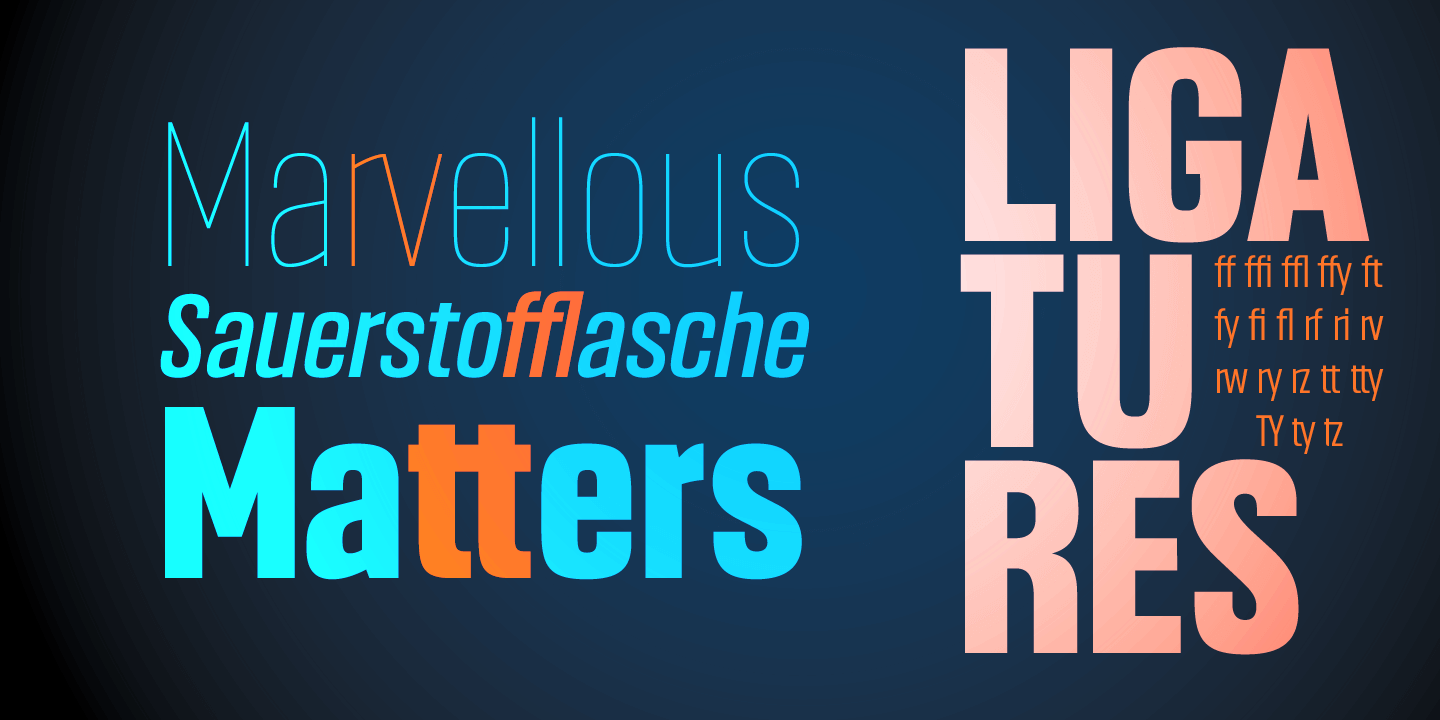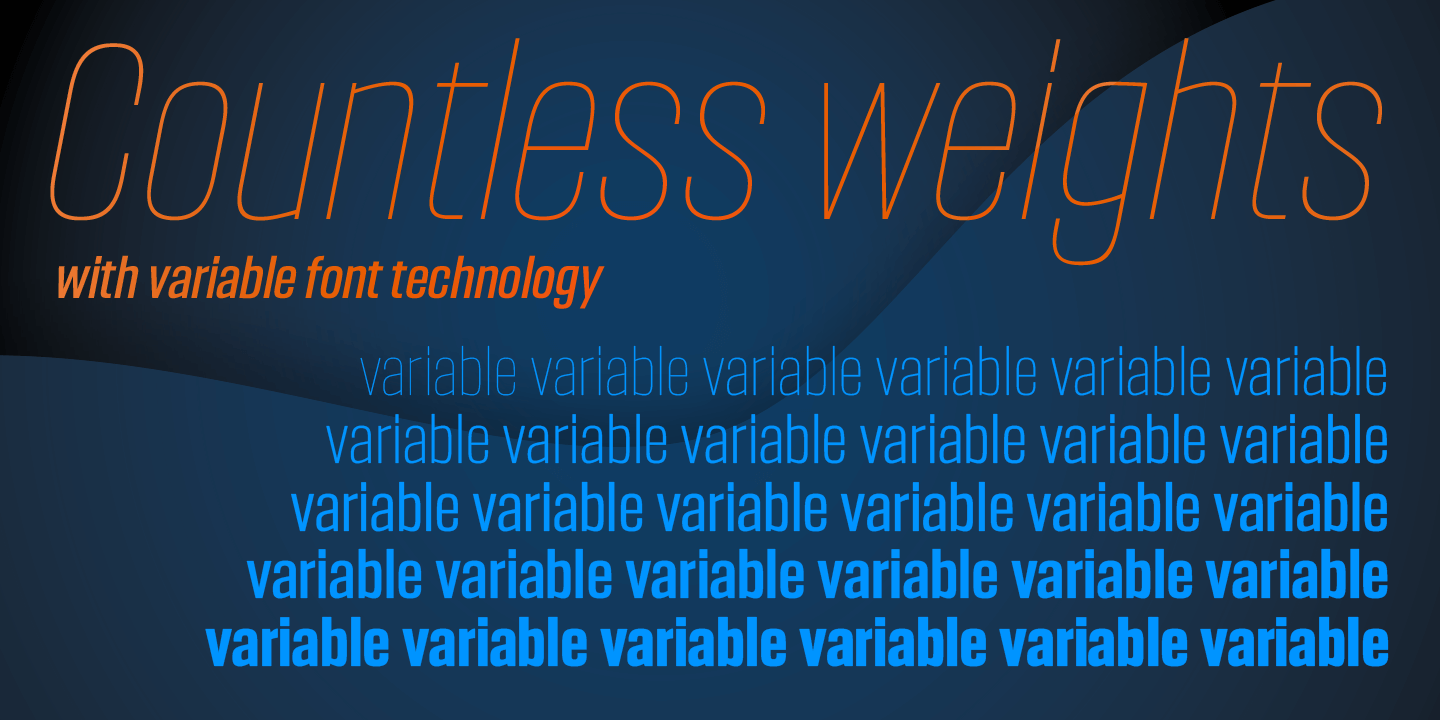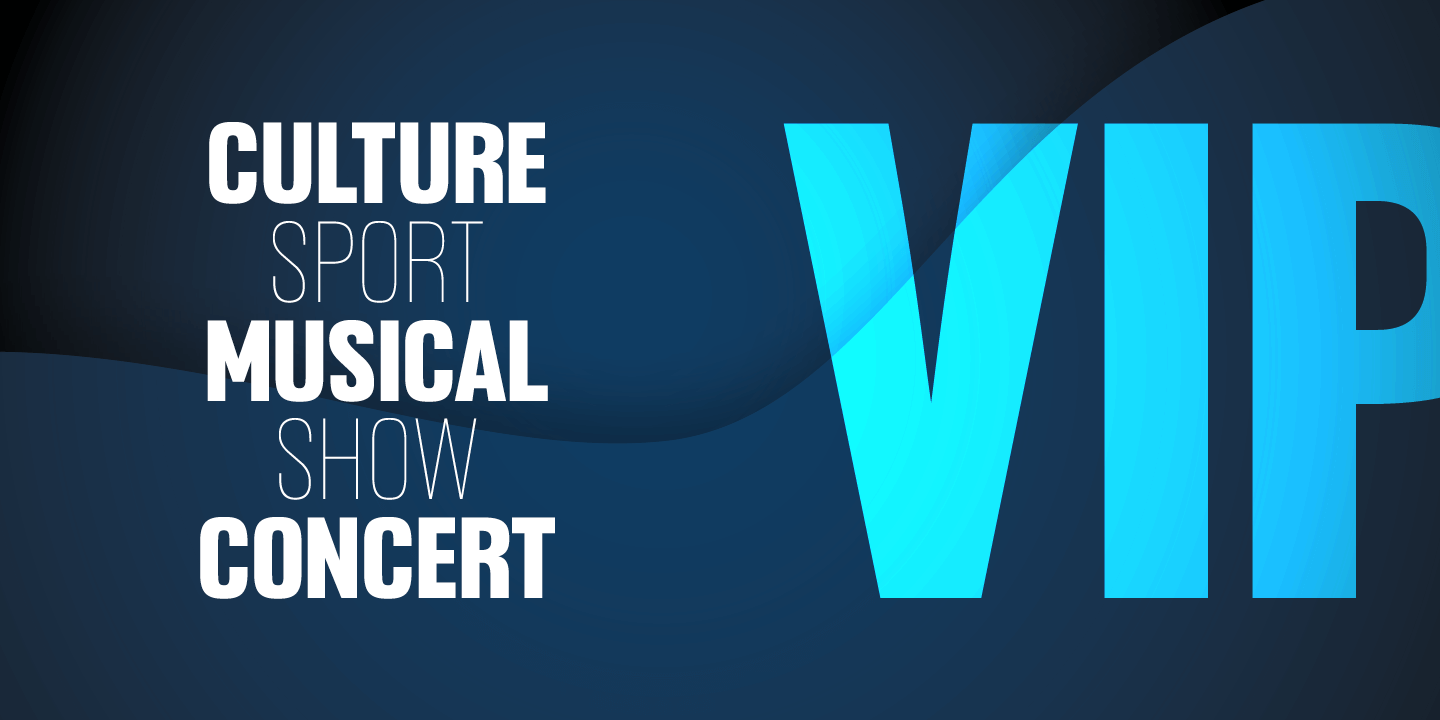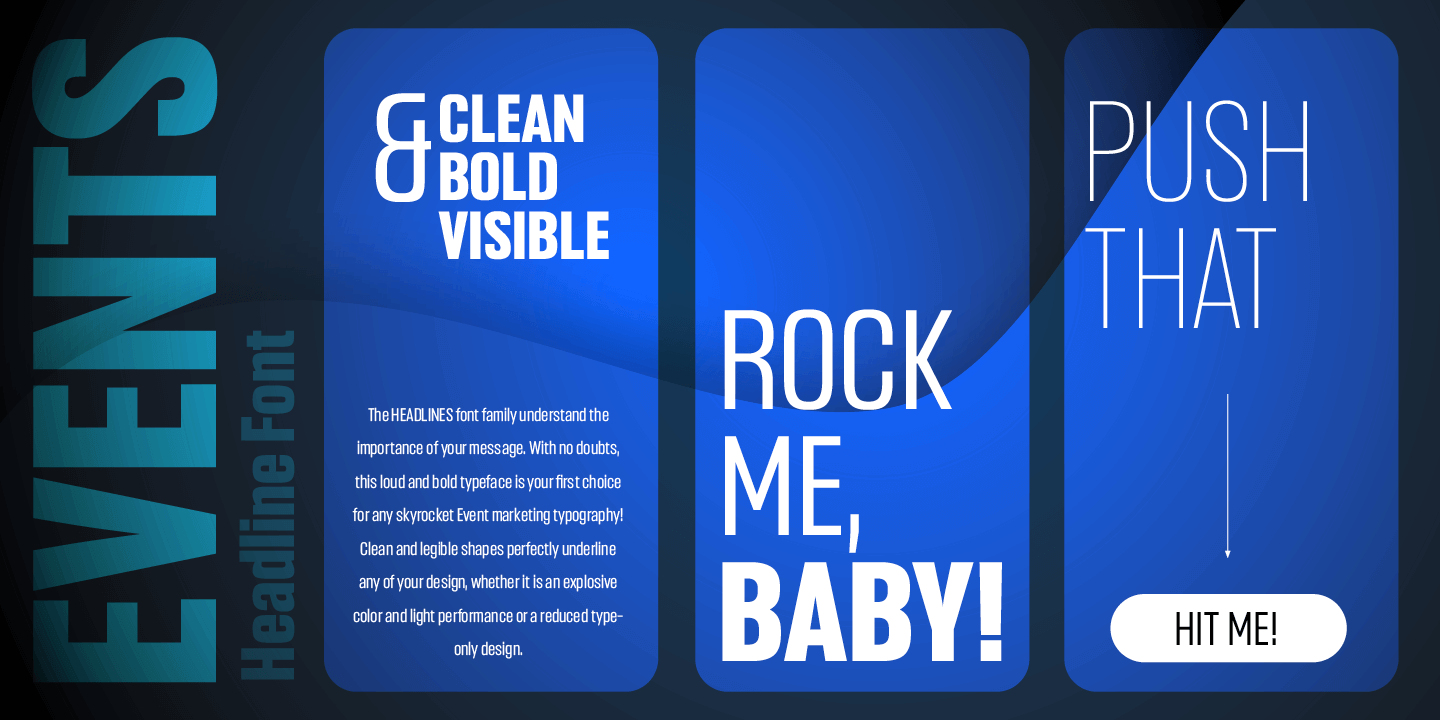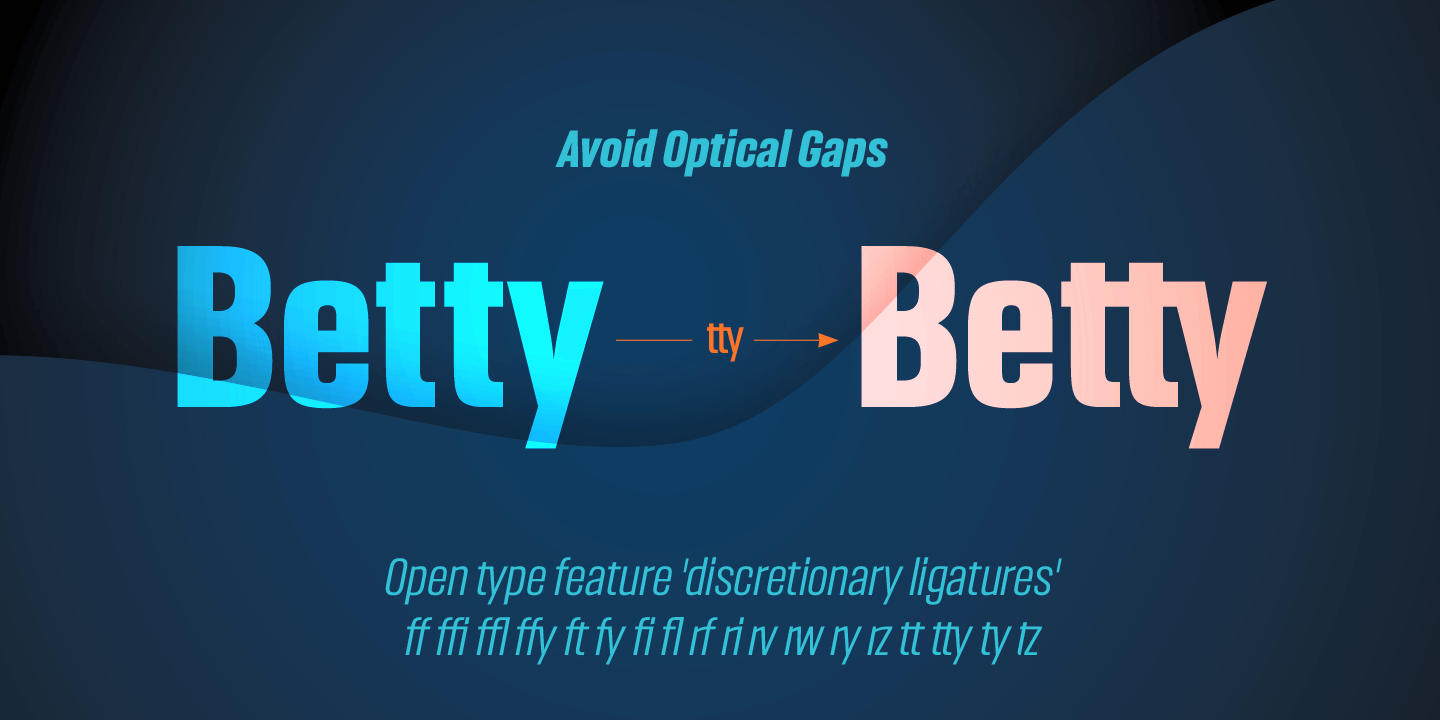
Headlines Variable
Headlines font family was designed for optimized headline settings. The condensed letters are designed for clear and straight headlines and also allow longer words and headlines to find the space they need for a well-composed headline. The exciting plus…